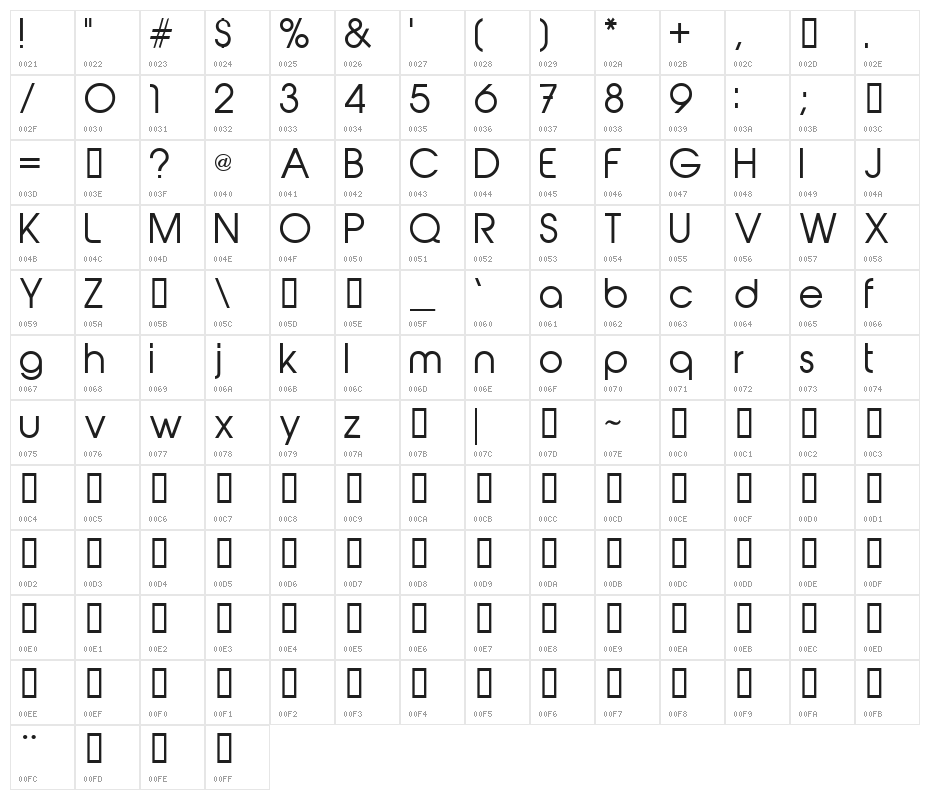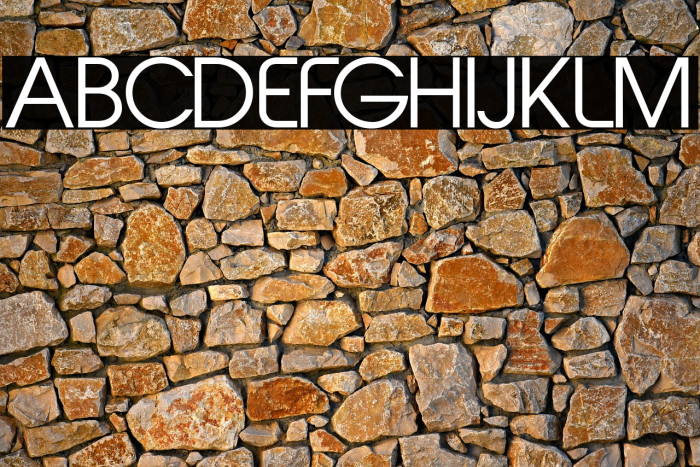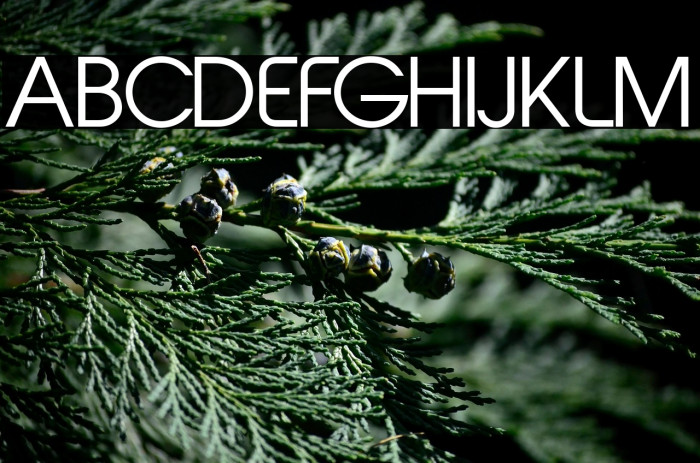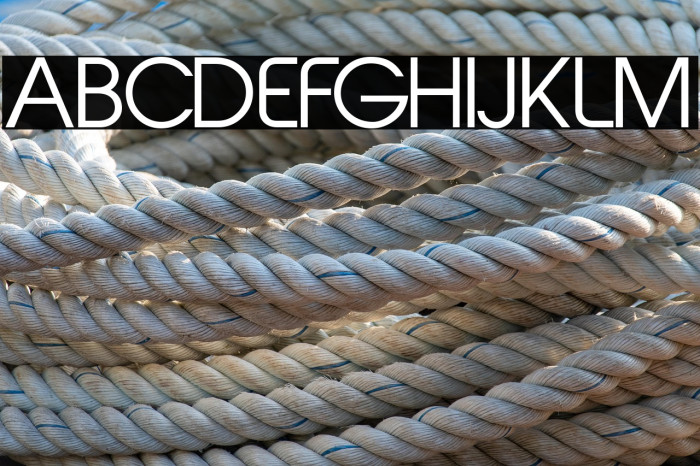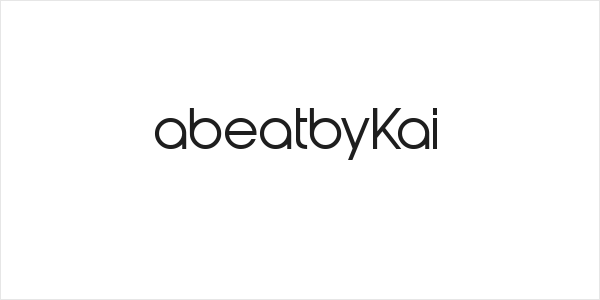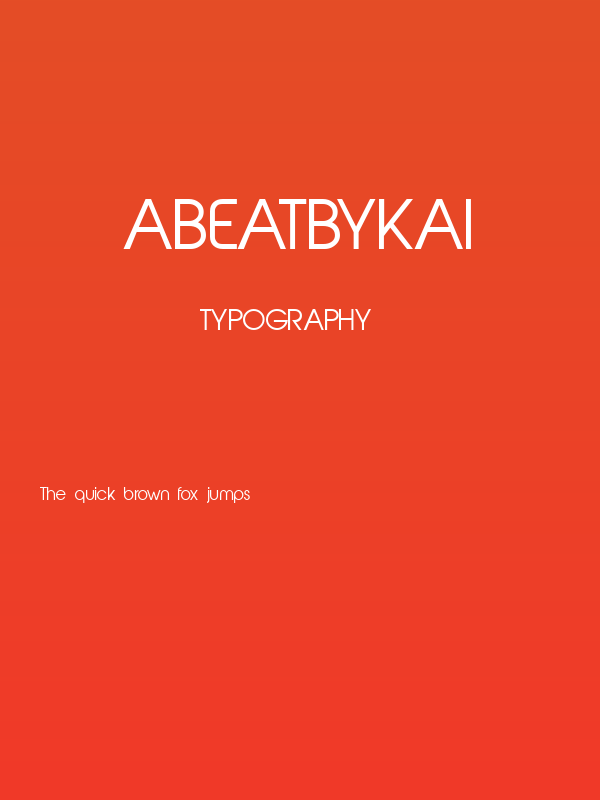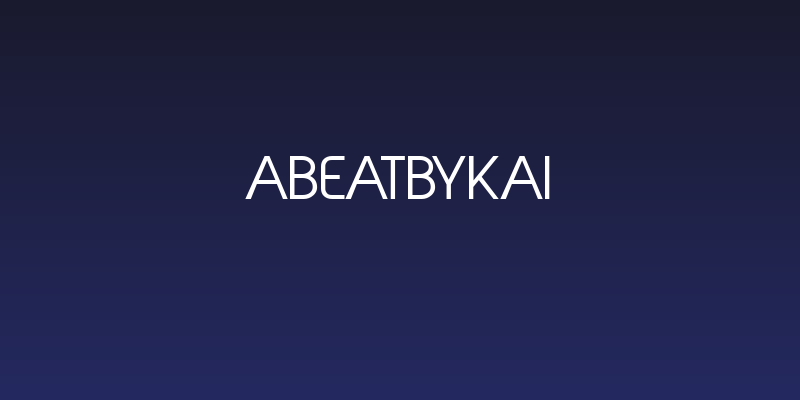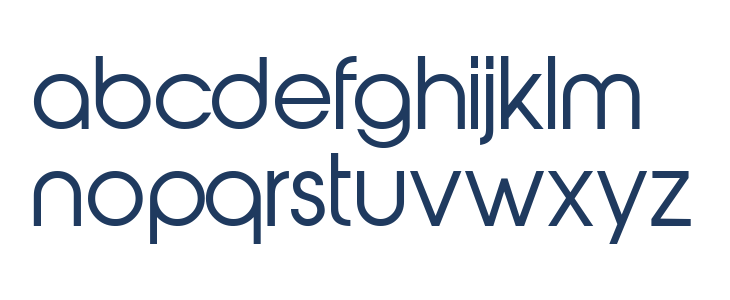
abeatbyKai Font
abeatbyKai Description
This font features a clean and modern sans-serif style with geometric influences. The characters are well-balanced with a uniform stroke width, giving it a sleek and contemporary appearance. The uppercase letters are bold and impactful, while the lowercase letters maintain a consistent and harmonious flow. The numerals are clear and easily distinguishable, making them suitable for various applications. Special characters are designed with the same attention to detail, ensuring they integrate seamlessly with the rest of the typeface. Overall, this font exudes a sense of professionalism and modernity, making it versatile for a range of design projects.